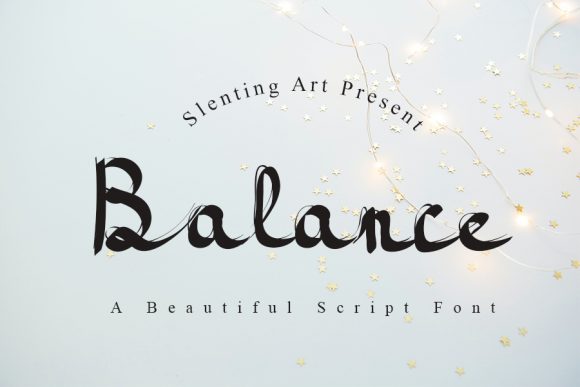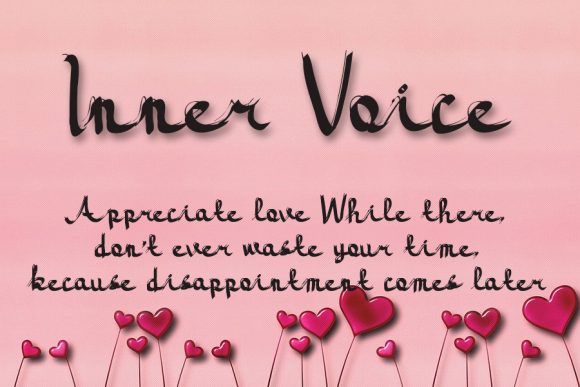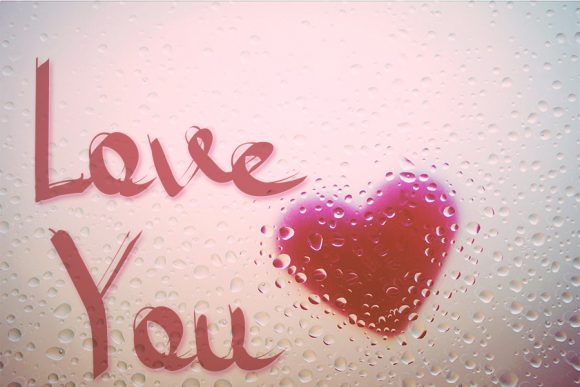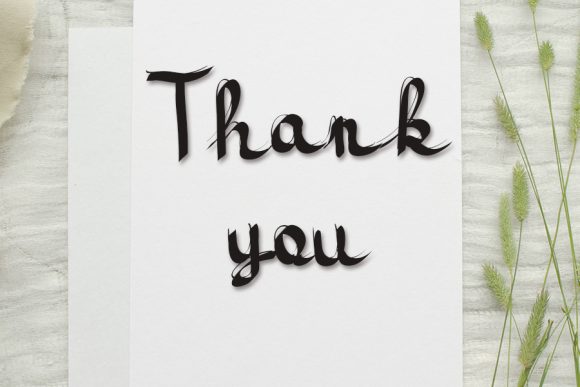
About Balance Font
Balance is a beautiful and well balanced handwritten font. It has a classy, elegant and modern look that can be used for logos, branding, invitations, stationery, wedding designs, social media posts, and much more!